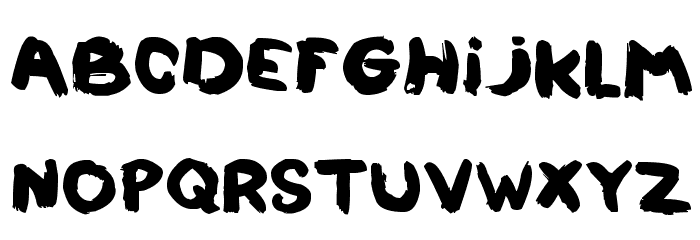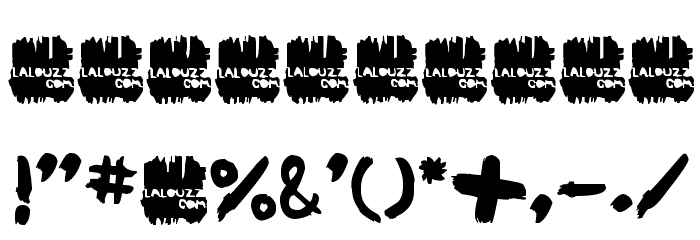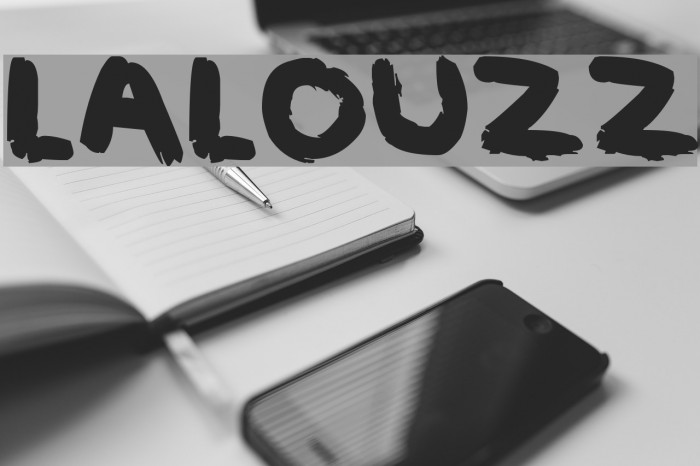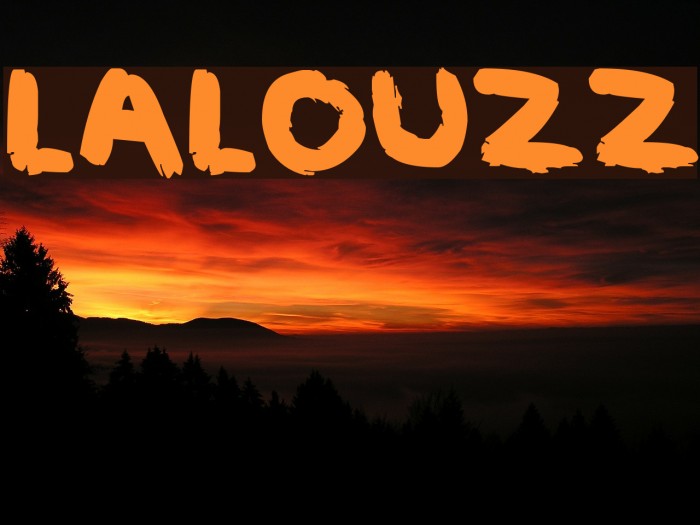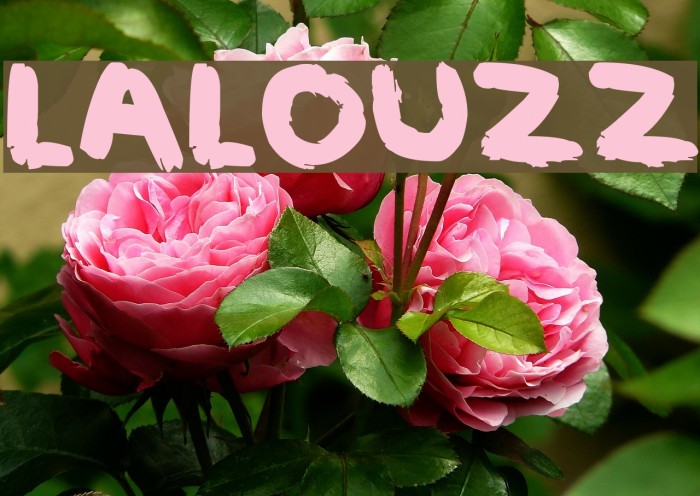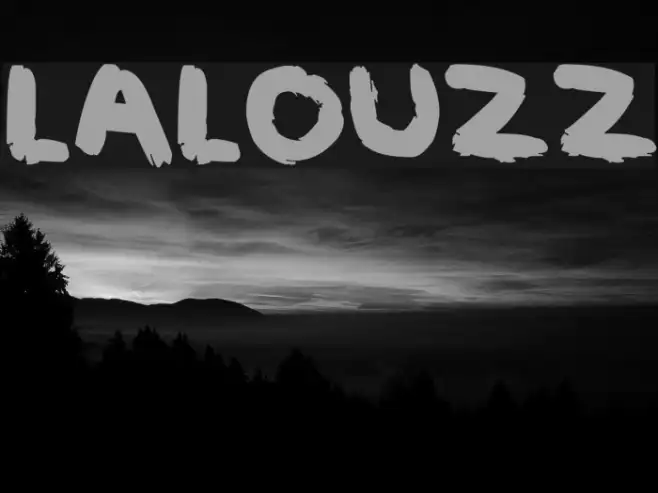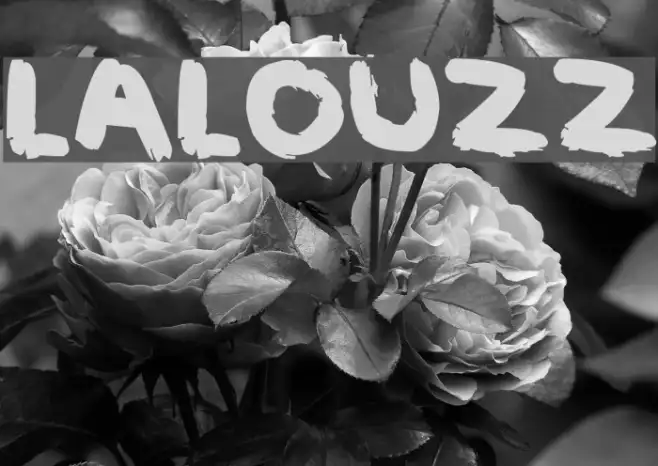
LALOUZZ Font
This font features a bold and expressive style with a hand-painted appearance. The characters are uneven and have a rough texture, giving them a dynamic and energetic feel. The uppercase and lowercase letters maintain a consistent weight, while the numbers and special characters follow the same artistic approach. The font's unique brushstroke effect adds a sense of movement and creativity, making it stand out in any design. Its boldness and distinctive style make it suitable for projects that require a strong visual impact.
A bold, hand-painted style font with a dynamic and rough texture.
- Proposed Projects: Ideal for posters, album covers, branding, and any creative projects that require a bold and artistic touch.